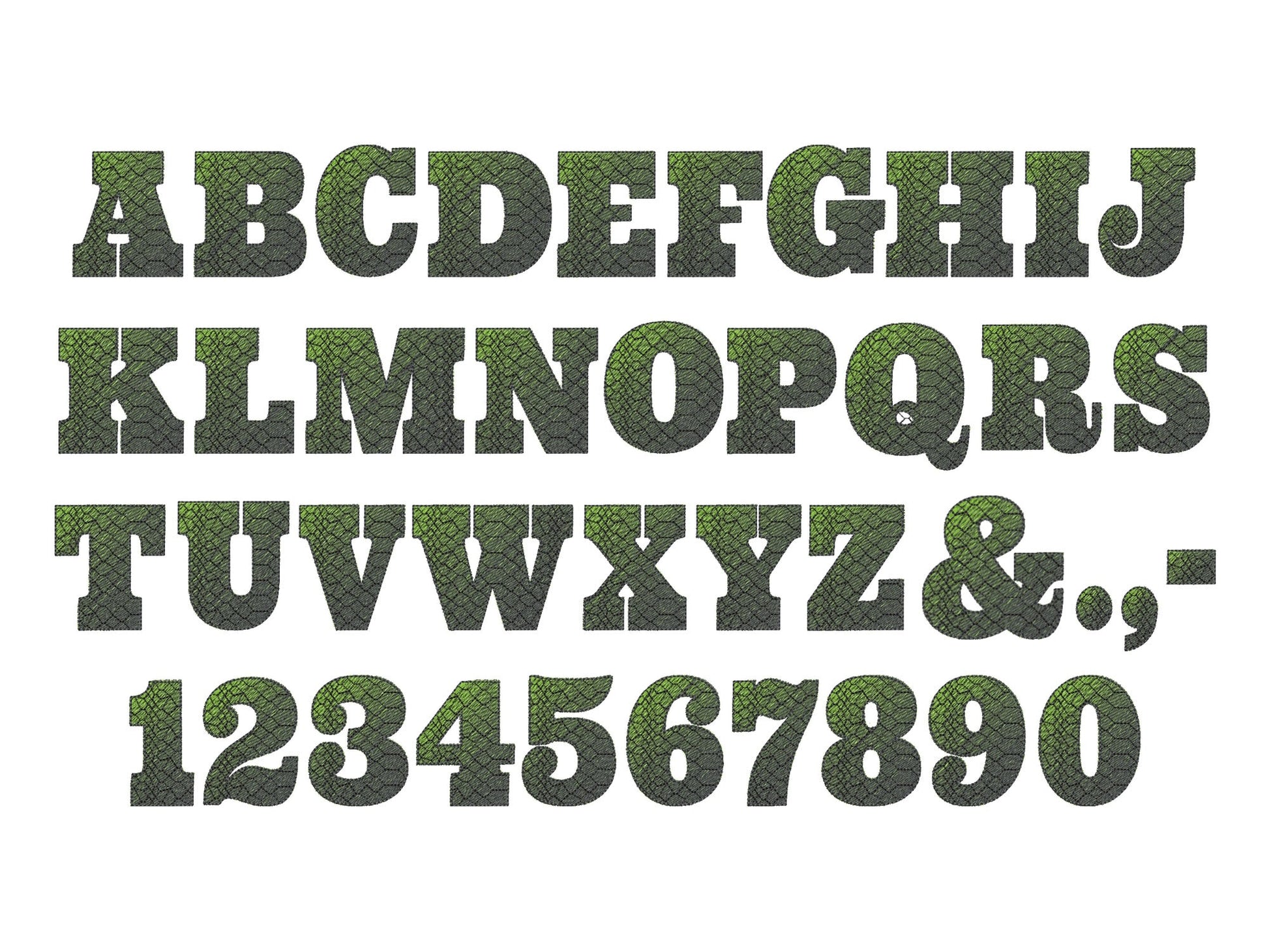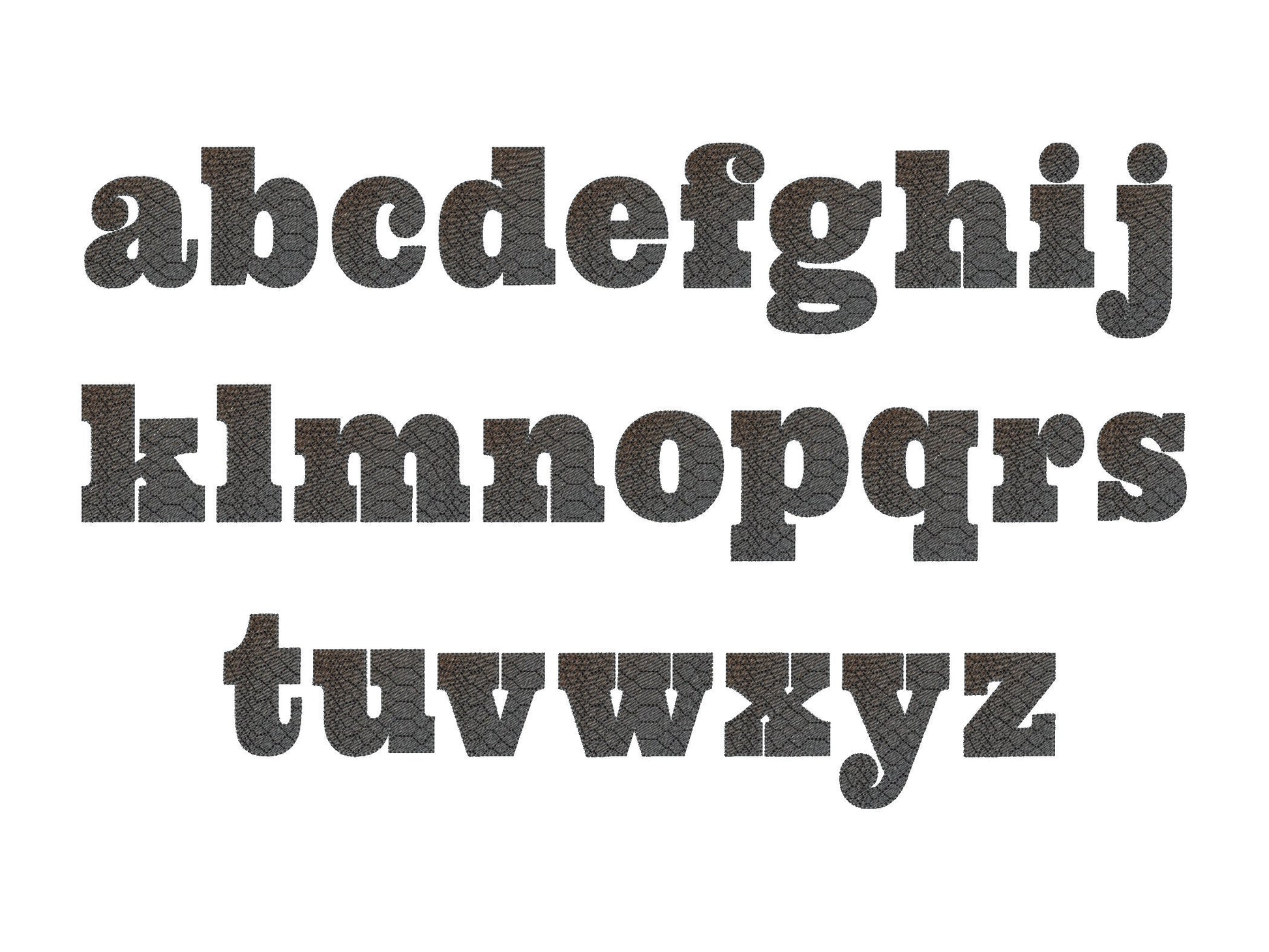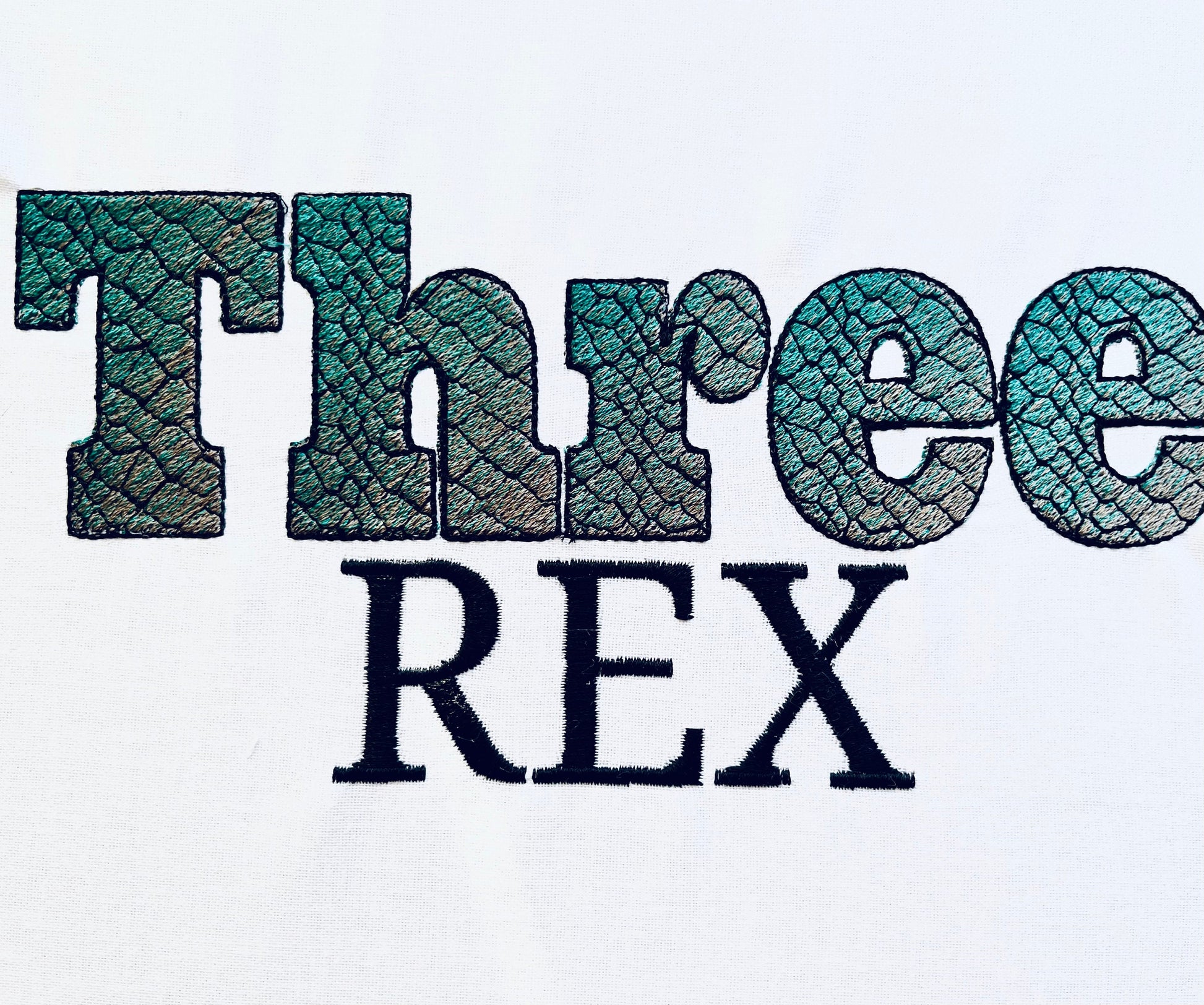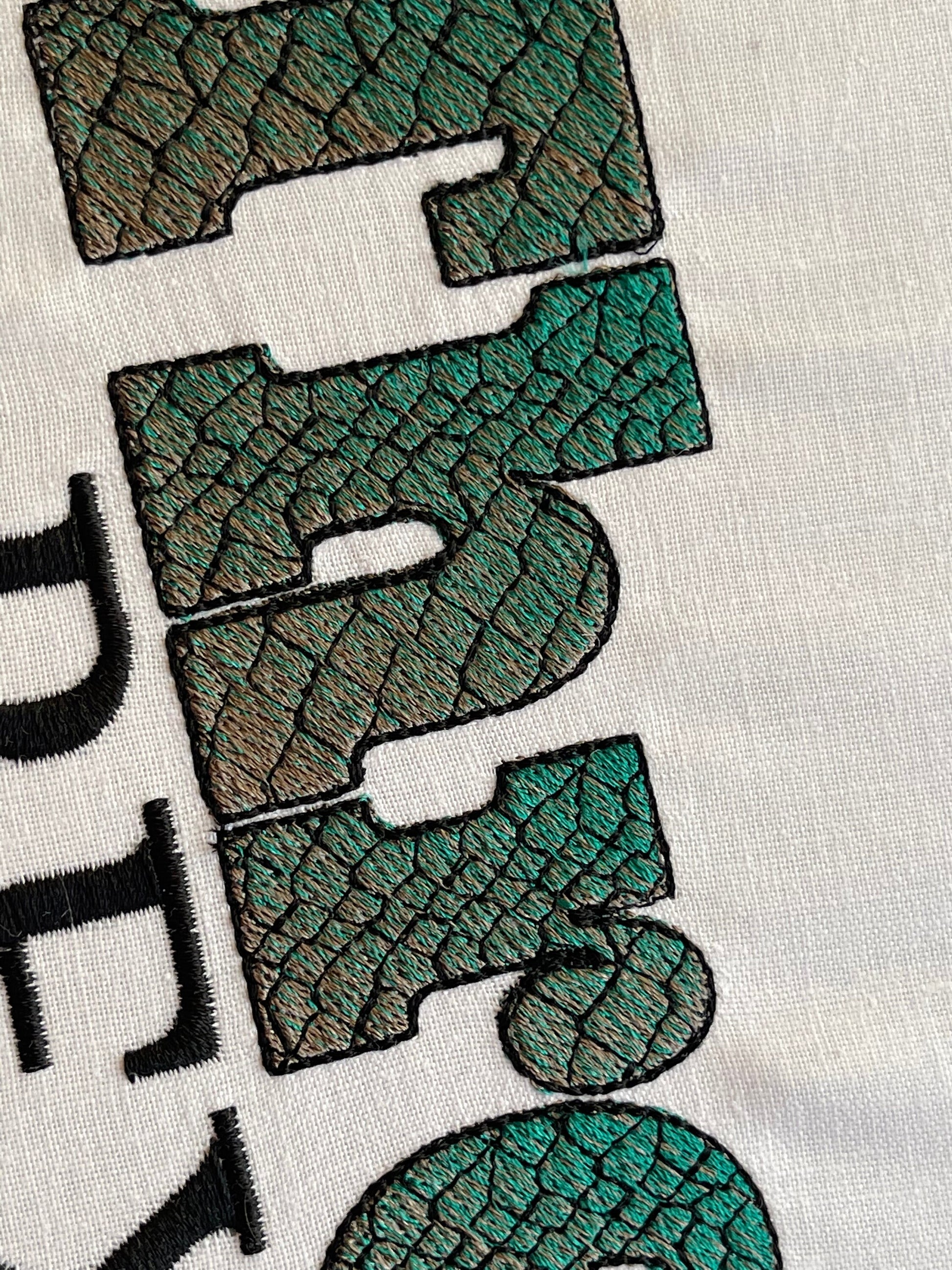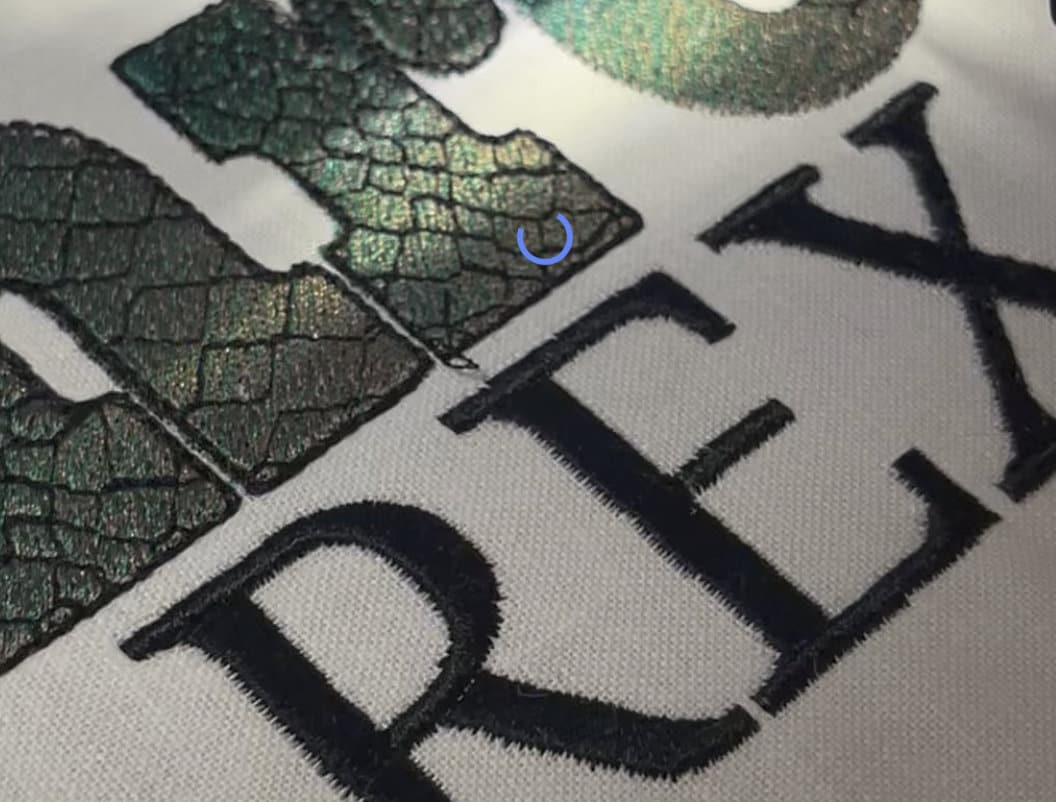
T-Rex Jurassic World Iridescent Font
Included: Uppercase A-Z, Lowercase a-z, Numbers 0-9, Punctuation
A dinosaur skin font in fill stitch with an ombre gradient. Fun for boys' shirts, dino birthday outfits, bags and names.
Uppercase and lowercase letters, numbers 0 to 9, plus &, period, comma and dash. Six sizes: 1.5, 1.7, 2, 2.5, 3 and 3.5 inches. Two layers blend green and brown into an ombre, then a skin pattern and an outline finish the T-Rex look.
• Dinosaur skin ombre font, fill stitch
• Uppercase, lowercase, numbers 0 to 9, punctuation
• 6 sizes, 1.5 to 3.5 in